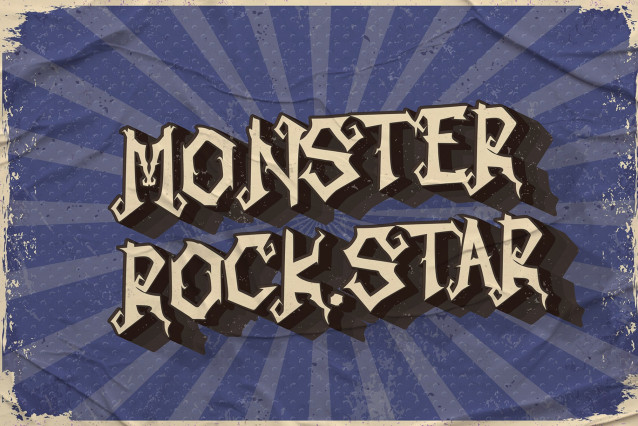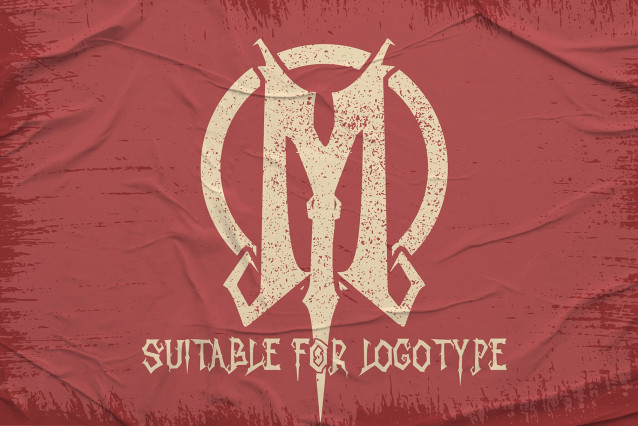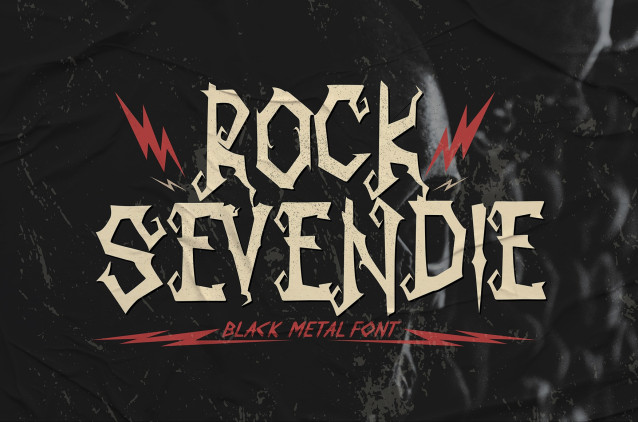
Rock Sevendie Font
Rock Sevendie Font – Modern Blackmetal Font was created: to bring raw intensity and sharp aesthetics into your designs. Built with all uppercase characters, this modern blackmetal font is a powerhouse for designers who want to make their work scream with attitude.